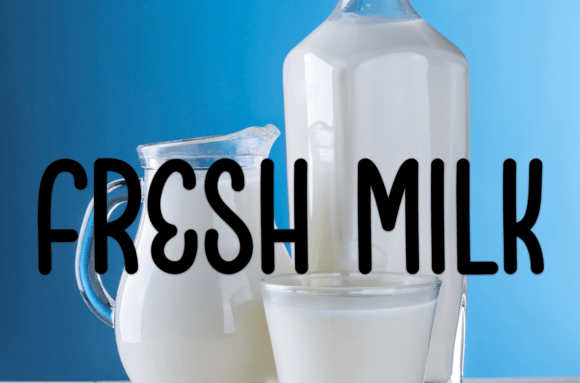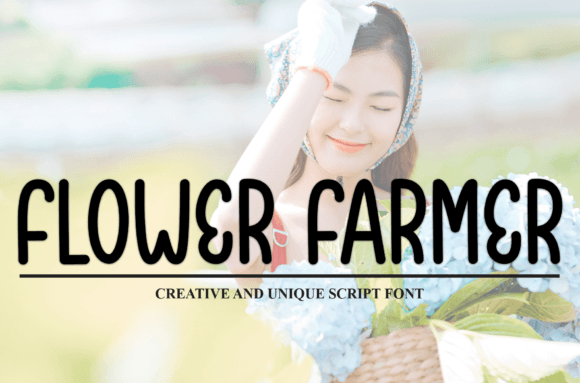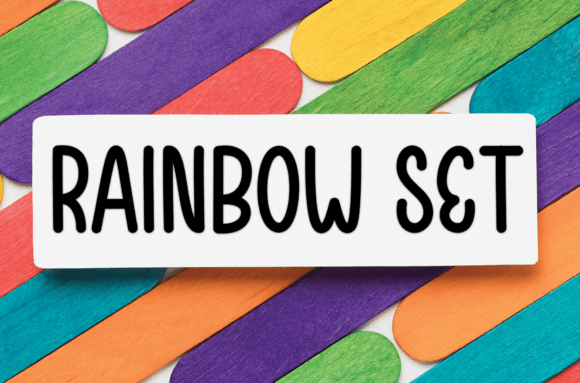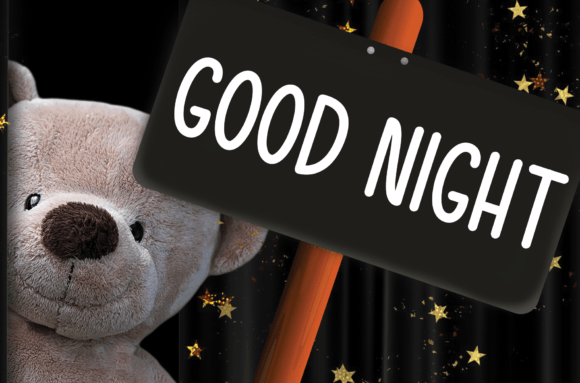
About Farmers and Sellers
this is a sweet and friendly handwritten display font. Cute and fun, this font is ideal for writing wedding invitations, cards, or any other design that might need a fun touch!